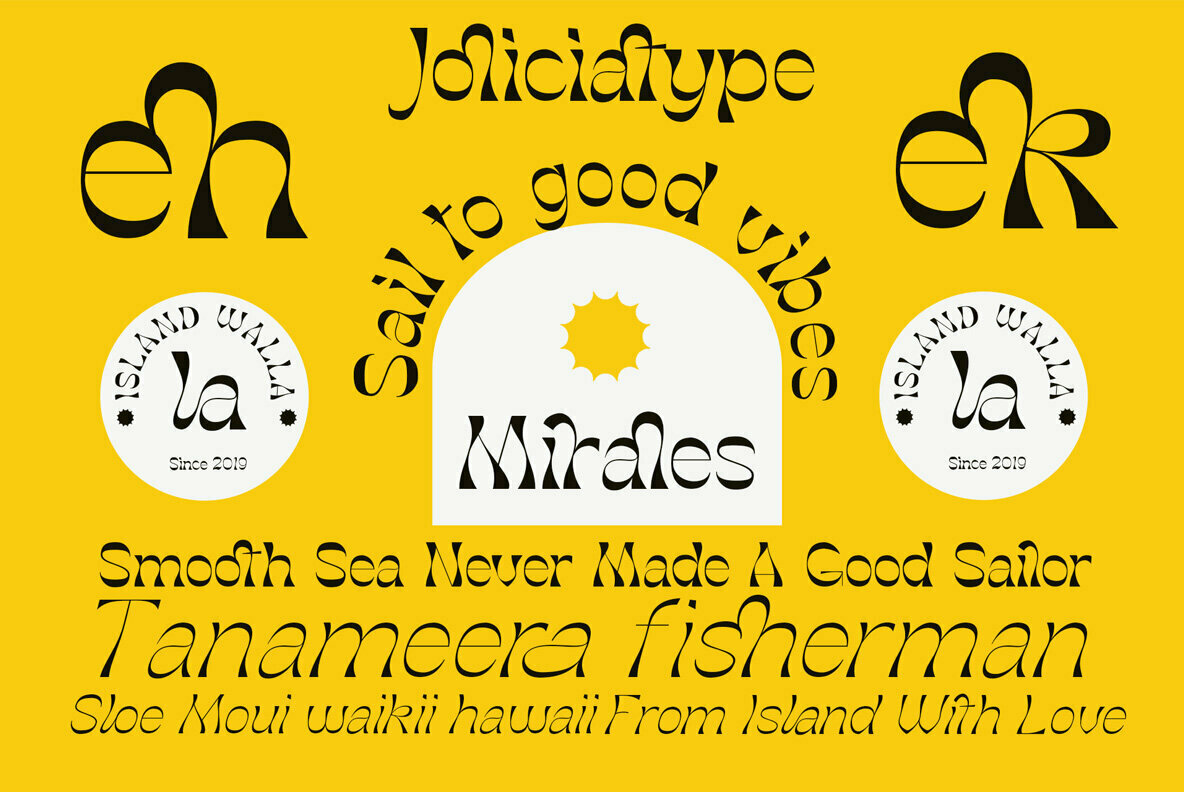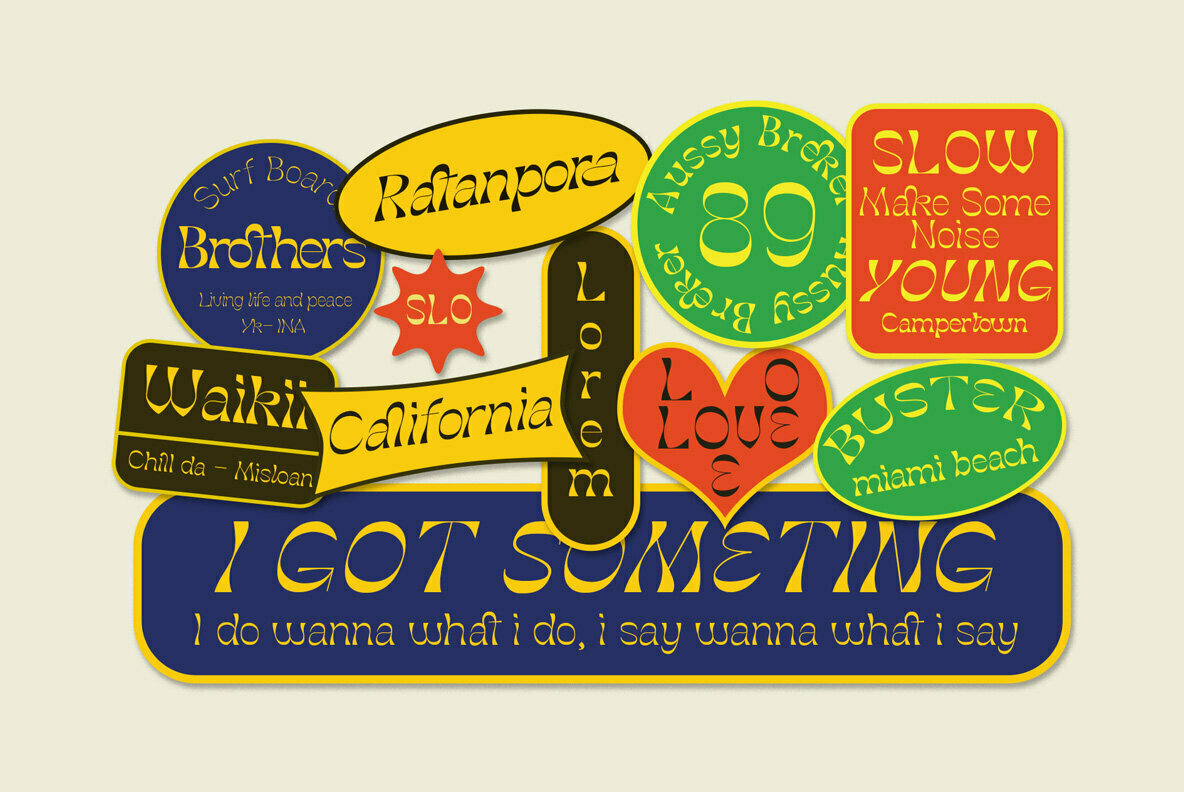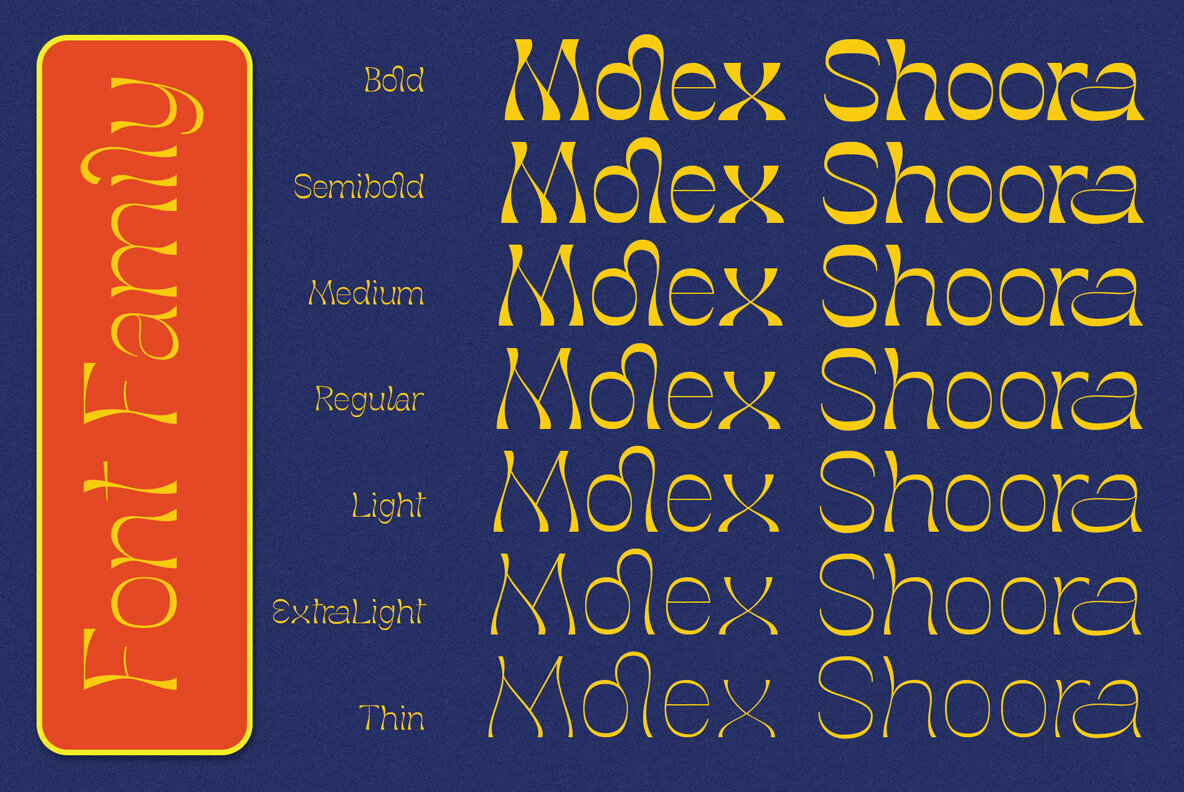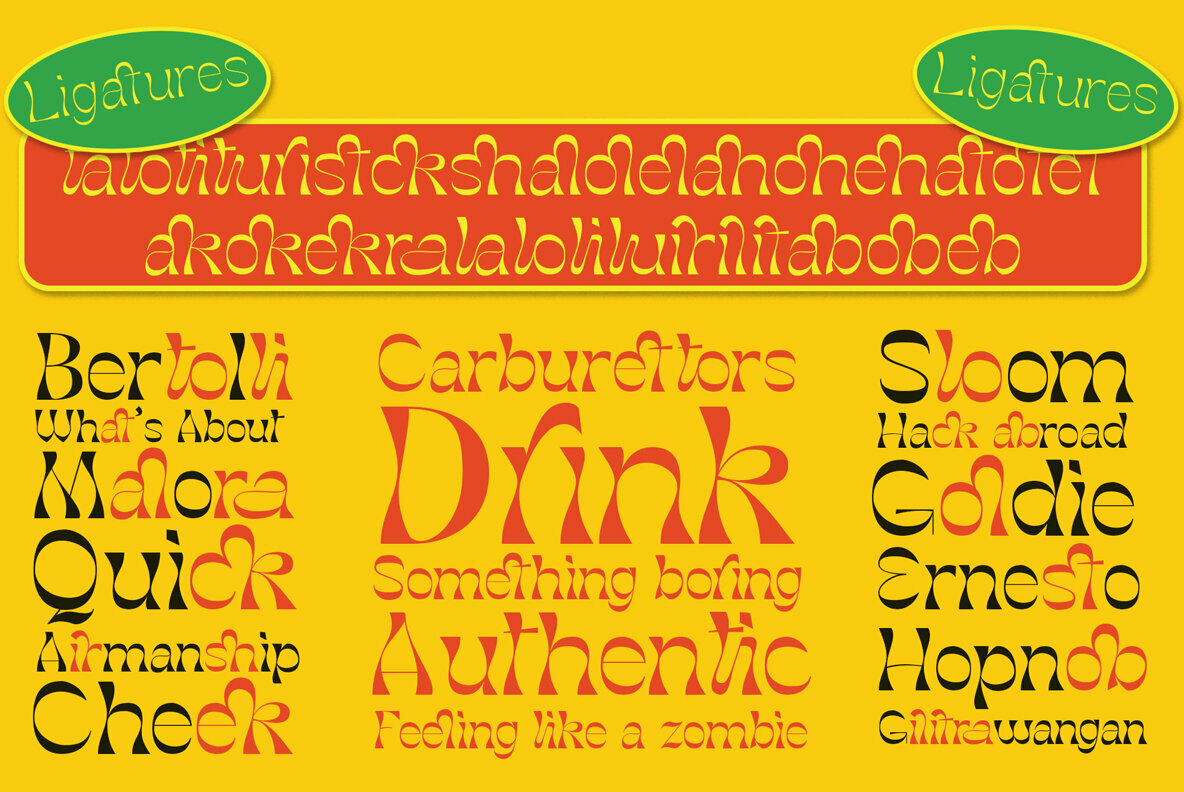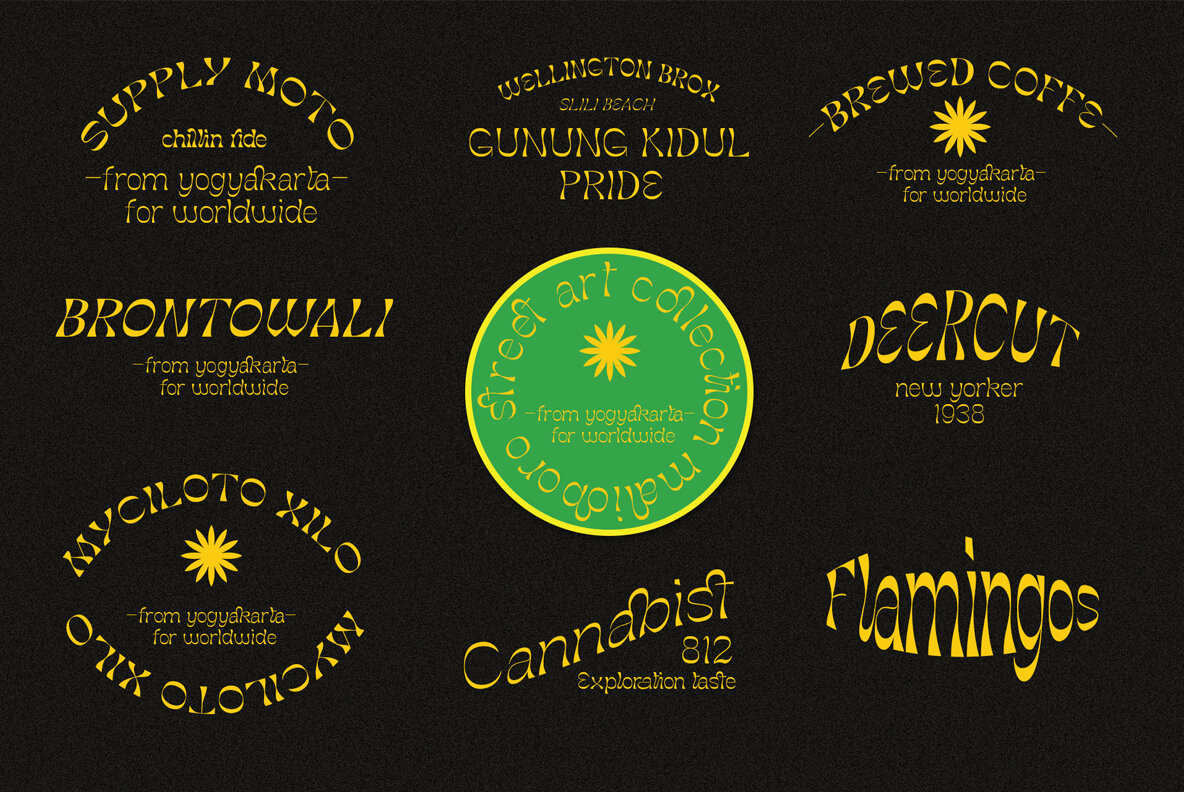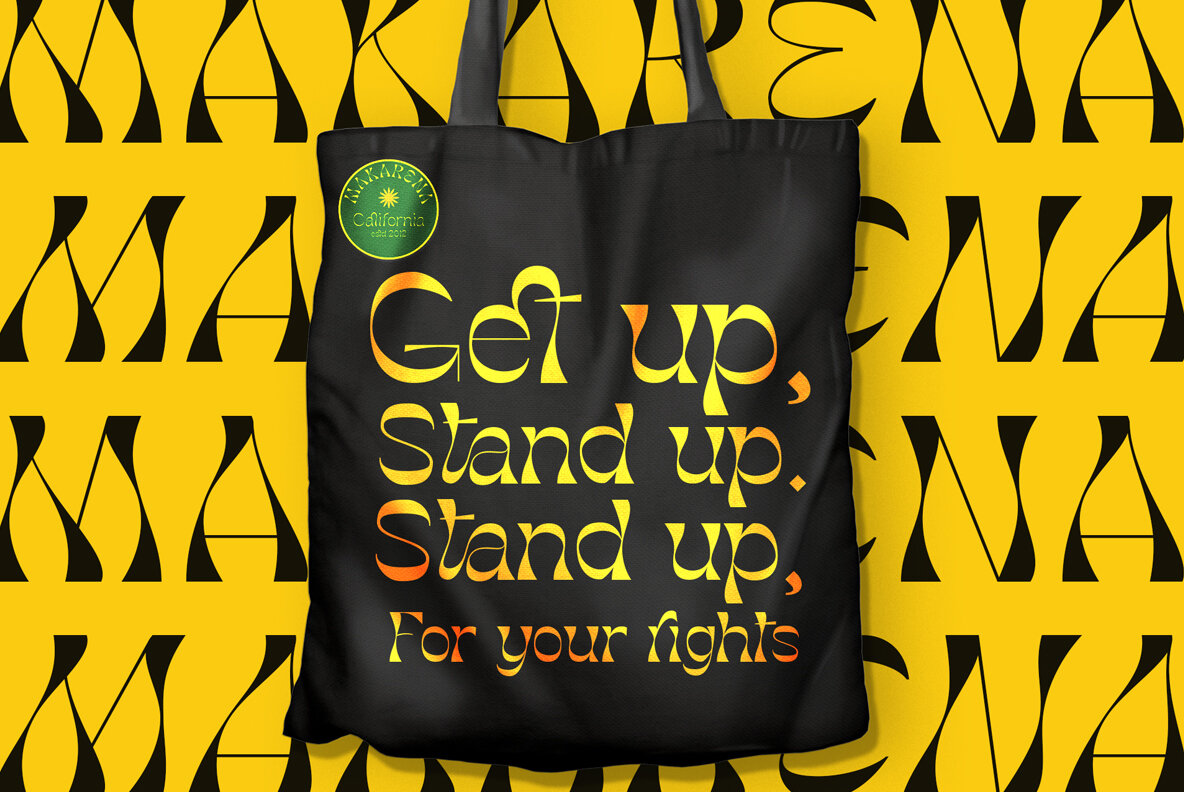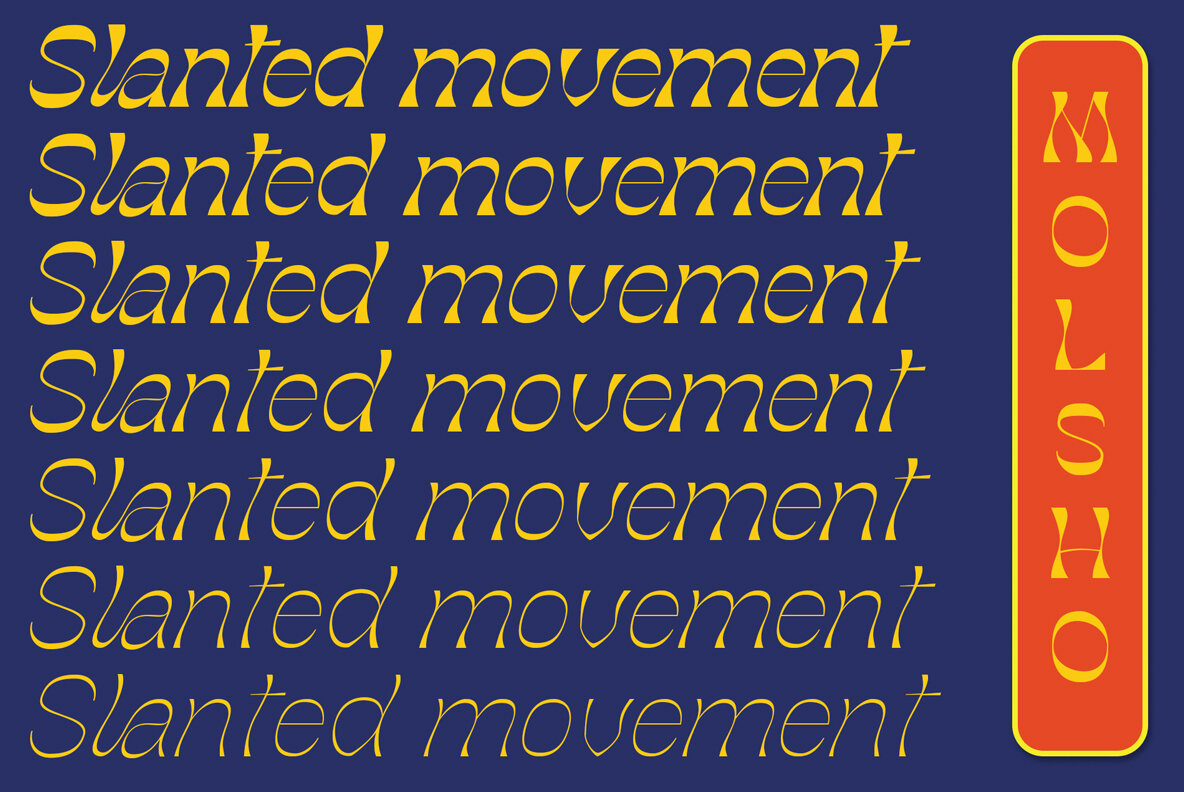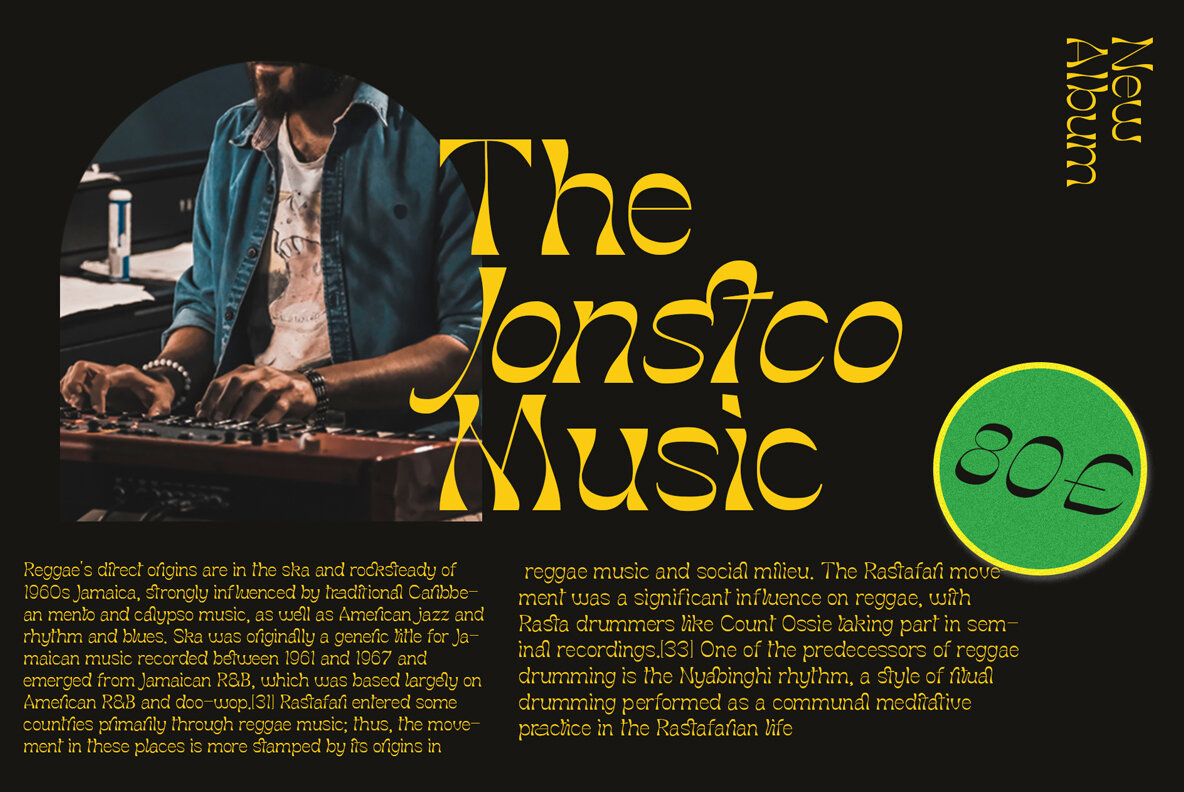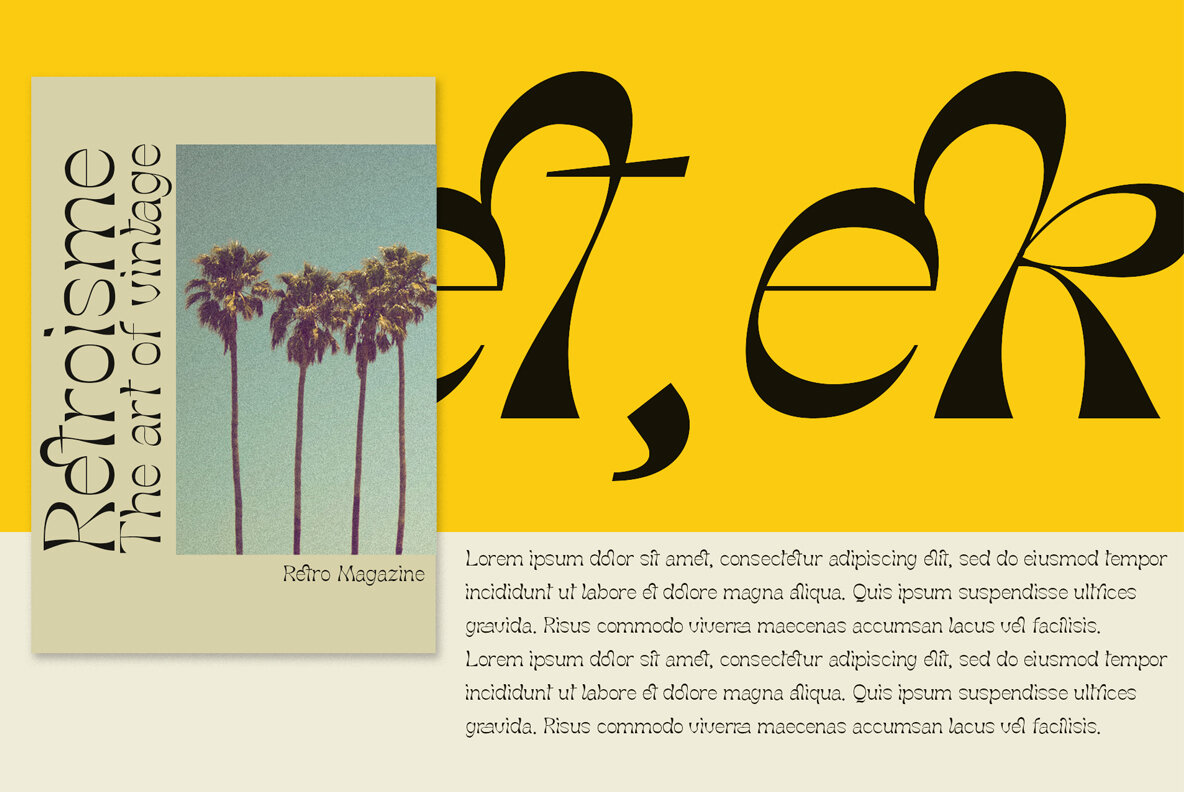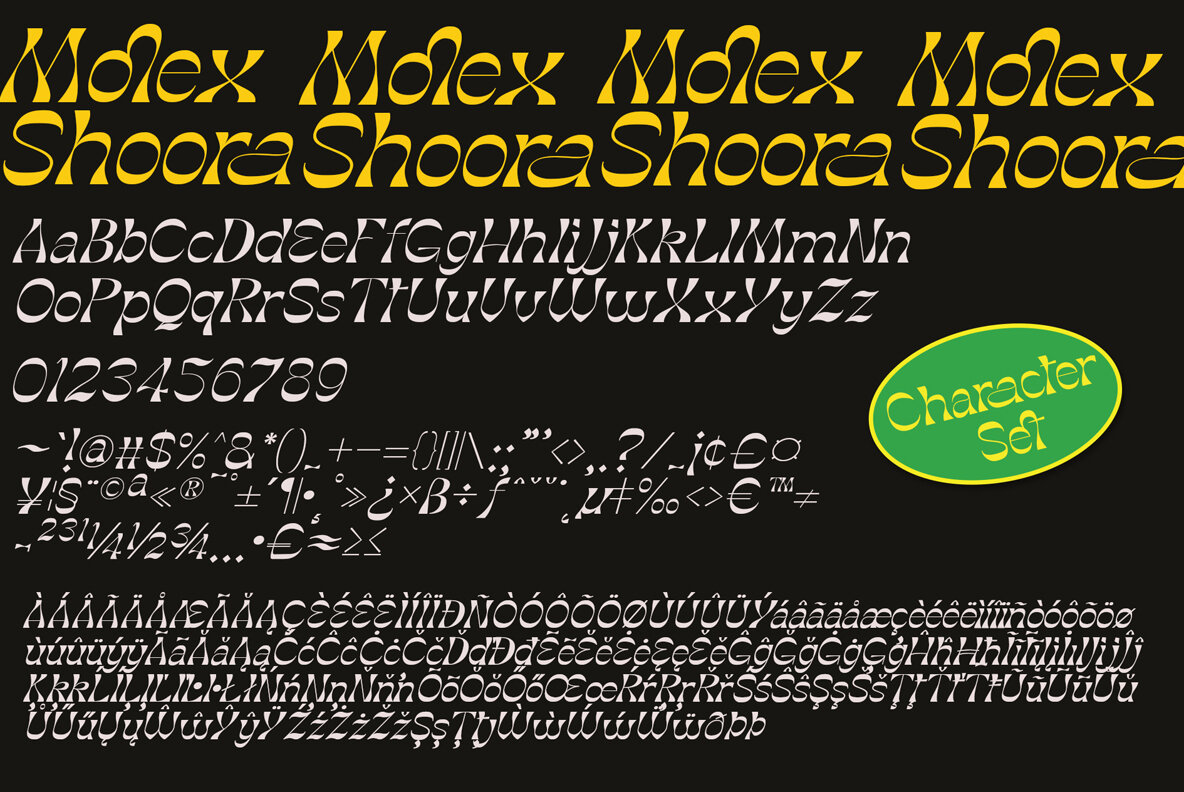
Molex Shoora Font
Molex Shoora brings a fresh twist to retro-inspired typefaces with its distinct design. Each letter is crafted with a bold upper and lower edge, gracefully tapering at the center, ensuring consistency across the typeface. This distinctive styling makes it appealing for projects that seek a vintage yet modern aesthetic. Molex Shoora is equipped to handle a wide range of linguistic needs, supporting 88 languages. This includes major European languages such as French, German, and Spanish, as well as regional languages like Catalan and Luxembourgish.Molex Shoora: Retro Elegance in Typography
Comprehensive Features